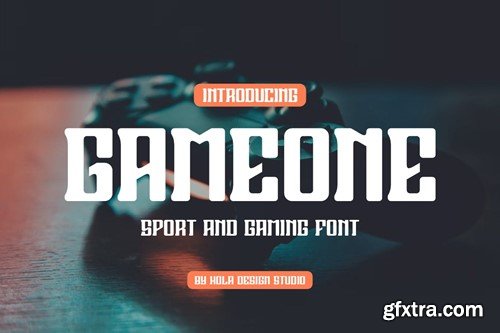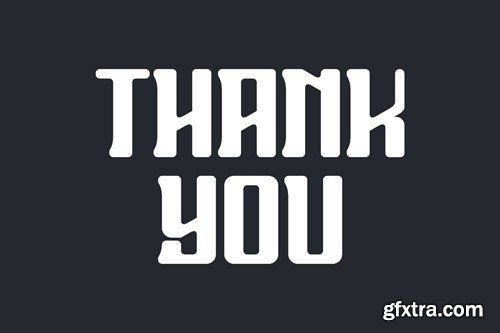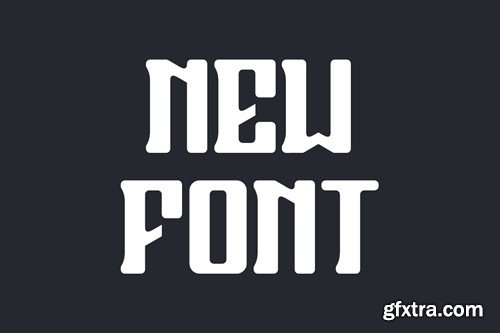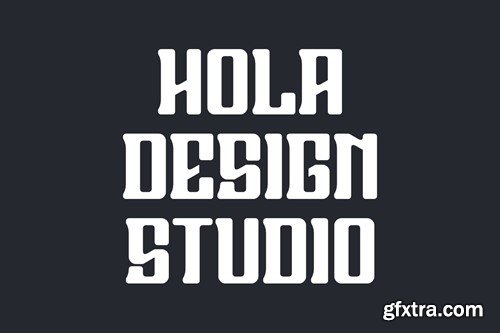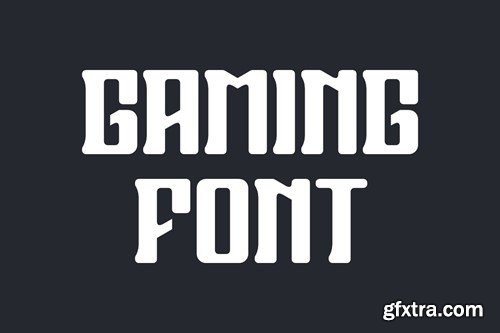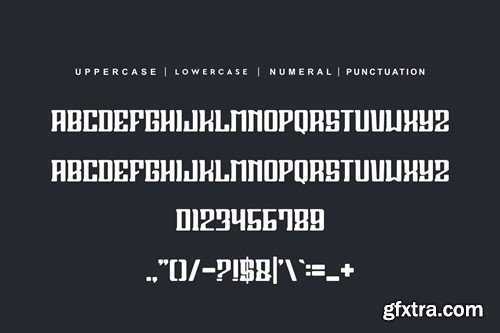
Gameone Font
Gameone Font is unique . Ready to use for your design like labeling, movie sceen, poster, movie title, gigs, album covers, logos, and much more. Included